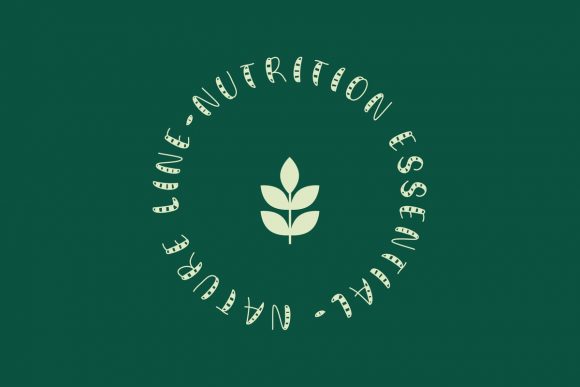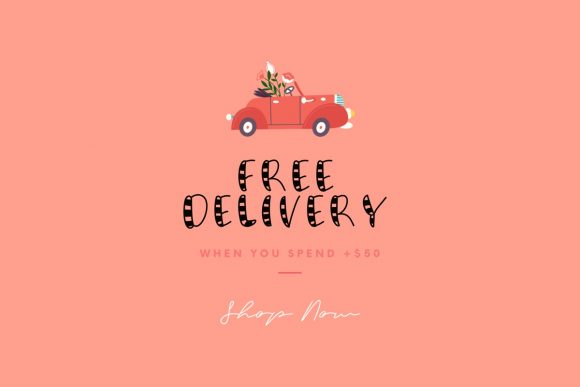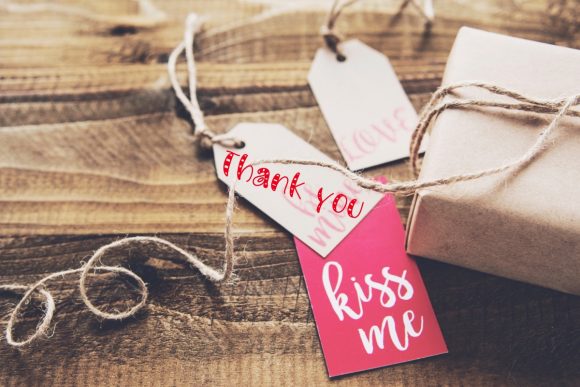
Introduction to Hello Zebra Font
Have you ever been working on a creative project, and suddenly, you’re stuck trying to find the perfect font to match your vision? This is where the magic of Hello Zebra Font comes in – a quirky and sweet display font that’s sure to add a lovely touch to your designs.
Imagine you’re designing a cartoon character’s logo, and you want it to stand out from the crowd. Or, you’re working on a children’s game, and you need a font that’s both fun and engaging. The Hello Zebra Font is an excellent choice for any design project that requires a high-quality, free download that’s perfect for a transparent background.
As a designer, having access to a versatile and creative resource like Hello Zebra Font can be a game-changer. It’s a valuable addition to any design toolkit, offering endless possibilities for creative expression and bringing your ideas to life.
Key Features of Hello Zebra Font
- High-quality design resource suitable for creative projects, available for free download
- Unique and colorful font with a transparent background, ideal for adding visual interest to designs
- Perfect for designers looking for a fun and playful font to add a touch of personality to their work
- Great for use in various creative projects, such as logos, graphics, and typography-based designs
Honest Review: Hello Zebra Font
I recently stumbled upon the Hello Zebra Font while searching for a unique design resource for a creative project. After downloading it for free, I was excited to test its capabilities. Overall, I was pleased with the results.
Here’s what works well: ✨ The font is high quality and features a transparent background, making it perfect for adding text overlays to images. The design is modern and playful, which fits well with a variety of creative projects. I also appreciated the flexibility of the font, as it can be easily customized to suit different design styles.
However, there are some limitations to consider: ⚠️ The font is not ideal for large blocks of text, as the design can become overwhelming. Additionally, some users may find the font too bold or eye-catching, which may not be suitable for more conservative designs.
Overall, I would recommend the Hello Zebra Font for designers who are looking for a fun and modern design element to add to their projects. While it may not be suitable for every design need, it’s a great resource to have in your toolkit.
Key features:
- Modern and playful design
- Flexible and customizable
Hello Zebra Font
For best results, use the Hello Zebra Font on a high-quality design resource with a transparent background. This will allow you to create a clean and elegant design that stands out.
The Hello Zebra Font is ideal for creative projects, such as graphic design, digital art, and branding. You can also use it for free download on personal projects, like invitations, flyers, and brochures.